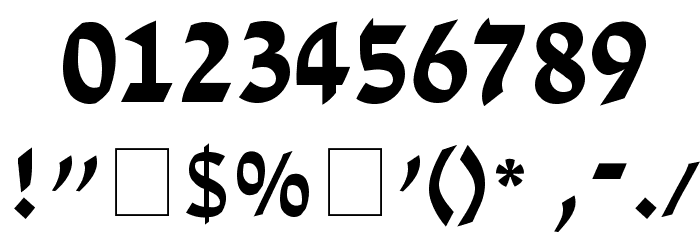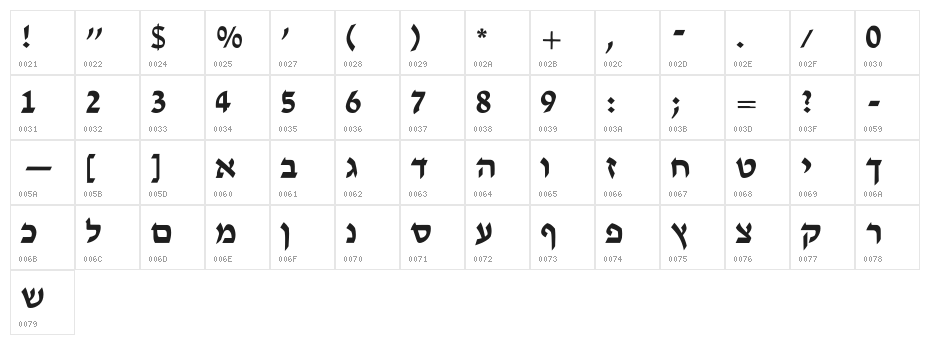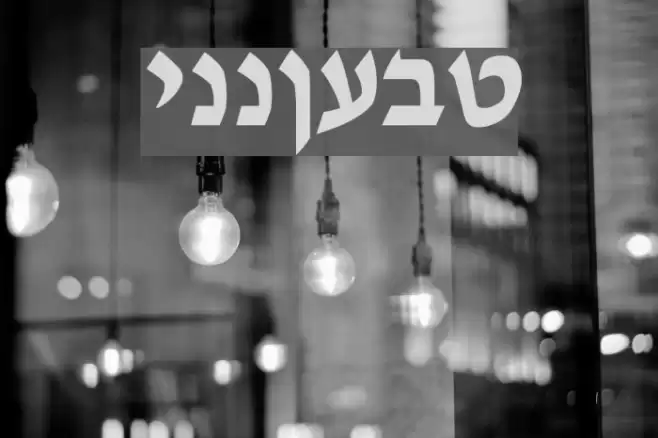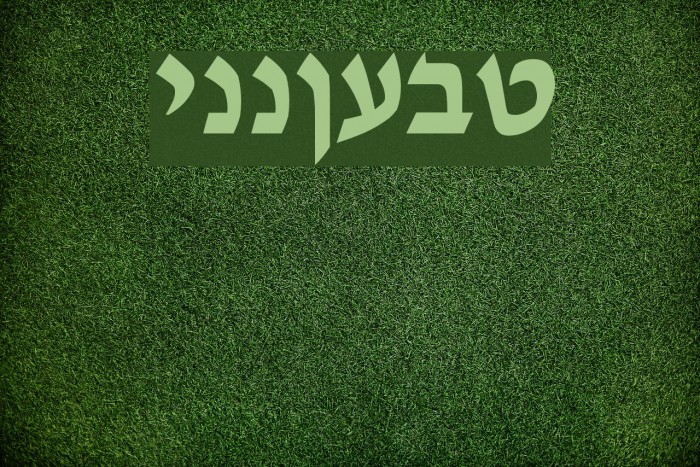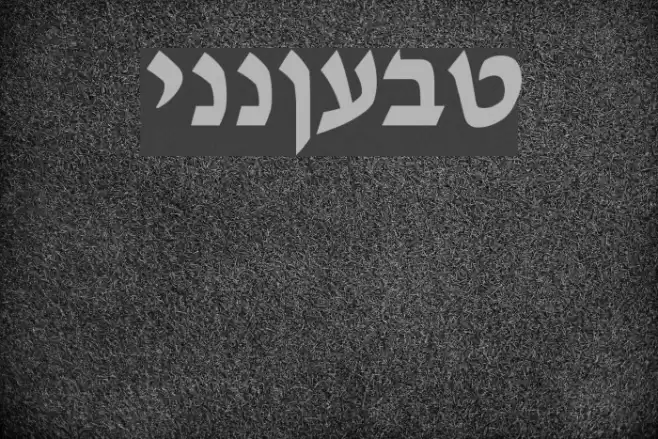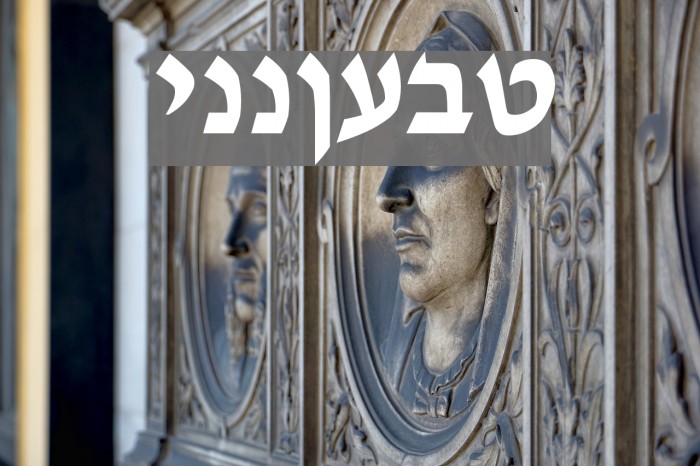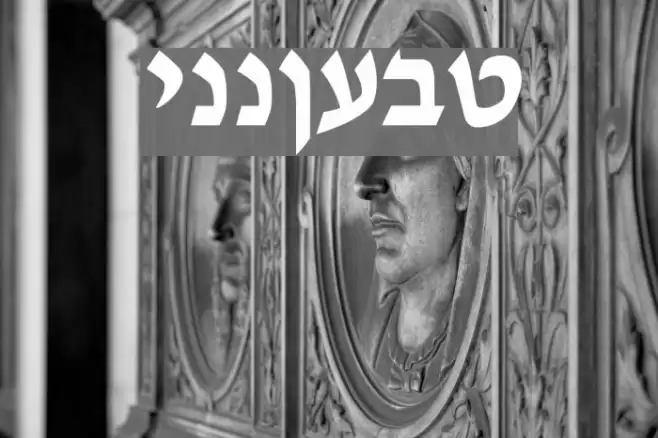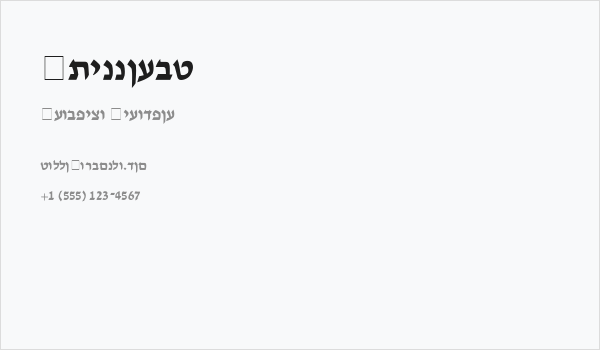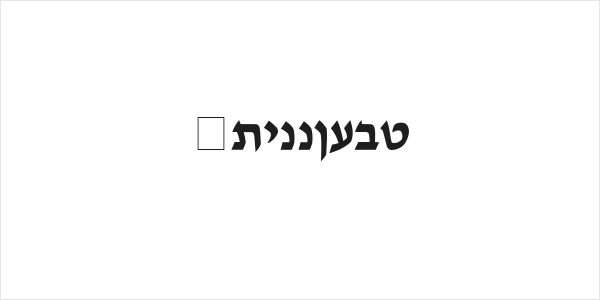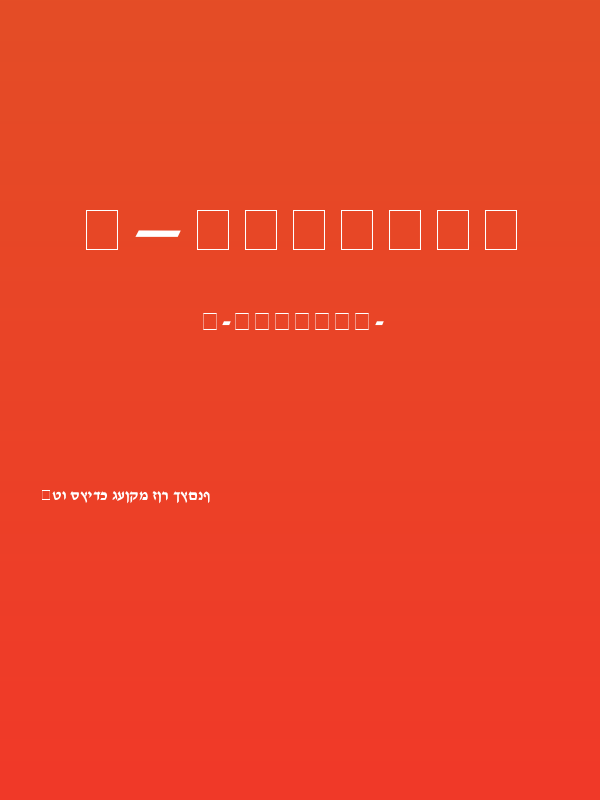
Tzipporah Font
Tzipporah Description
This font features a bold and dynamic style with sharp angles and distinct geometric shapes. The characters are crafted with a strong presence, making them highly legible and impactful. The strokes are consistent in thickness, contributing to a uniform appearance. The design incorporates a modern aesthetic with a touch of traditional influence, evident in the angular serifs and the overall structure of the letters. The numerals and special characters maintain the same boldness and clarity, ensuring cohesive use across various applications.